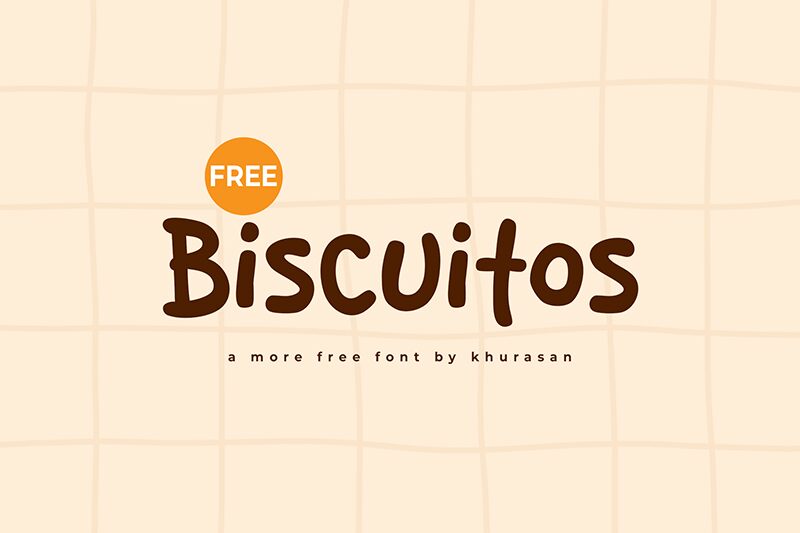
Biscuitos
Biscuitos font by Khurasan is a cartoon display typeface with rounded, irregular shapes and an approachable vibe. Its casual aesthetic and modern look create a friendly appearance perfect for drawing attention in the most positive way.
Free to use, Biscuitos is effective in numerous design projects: posters, banners, advertisements stoplights, children’s content publications, games titles, social media ads and covers; most importantly when choosing fonts for logos.